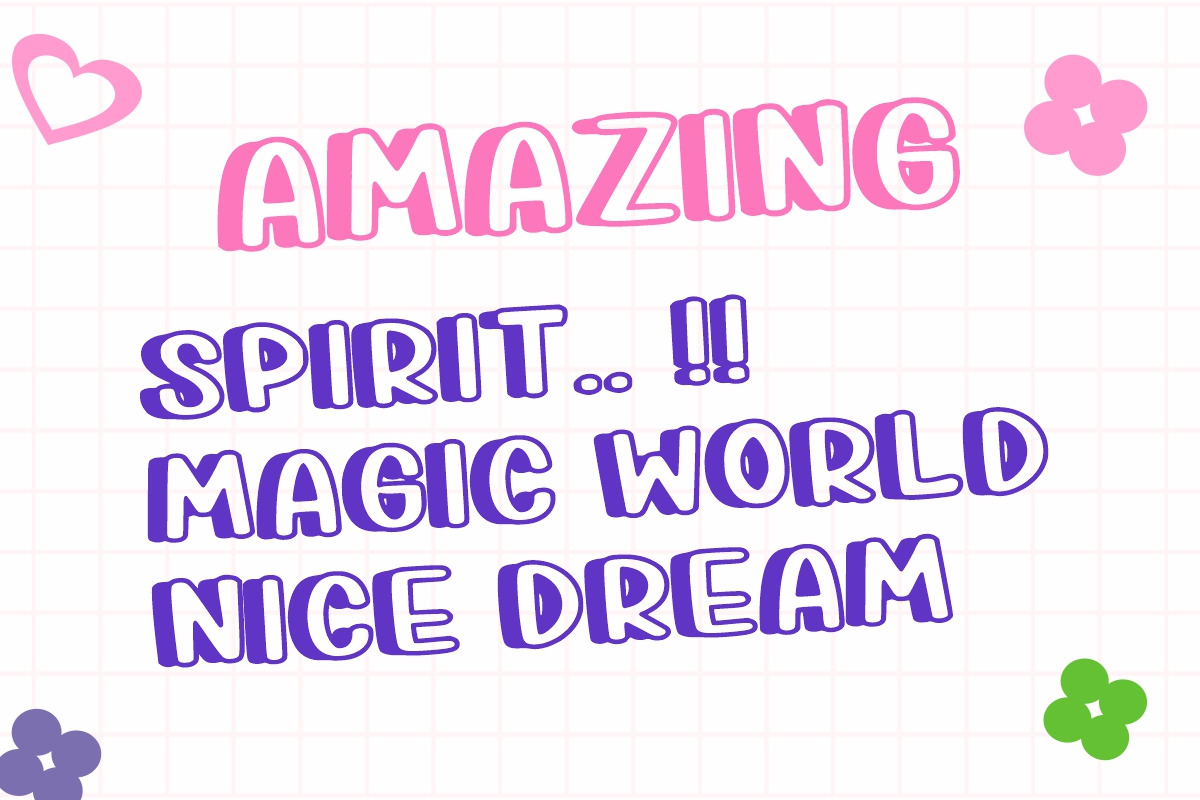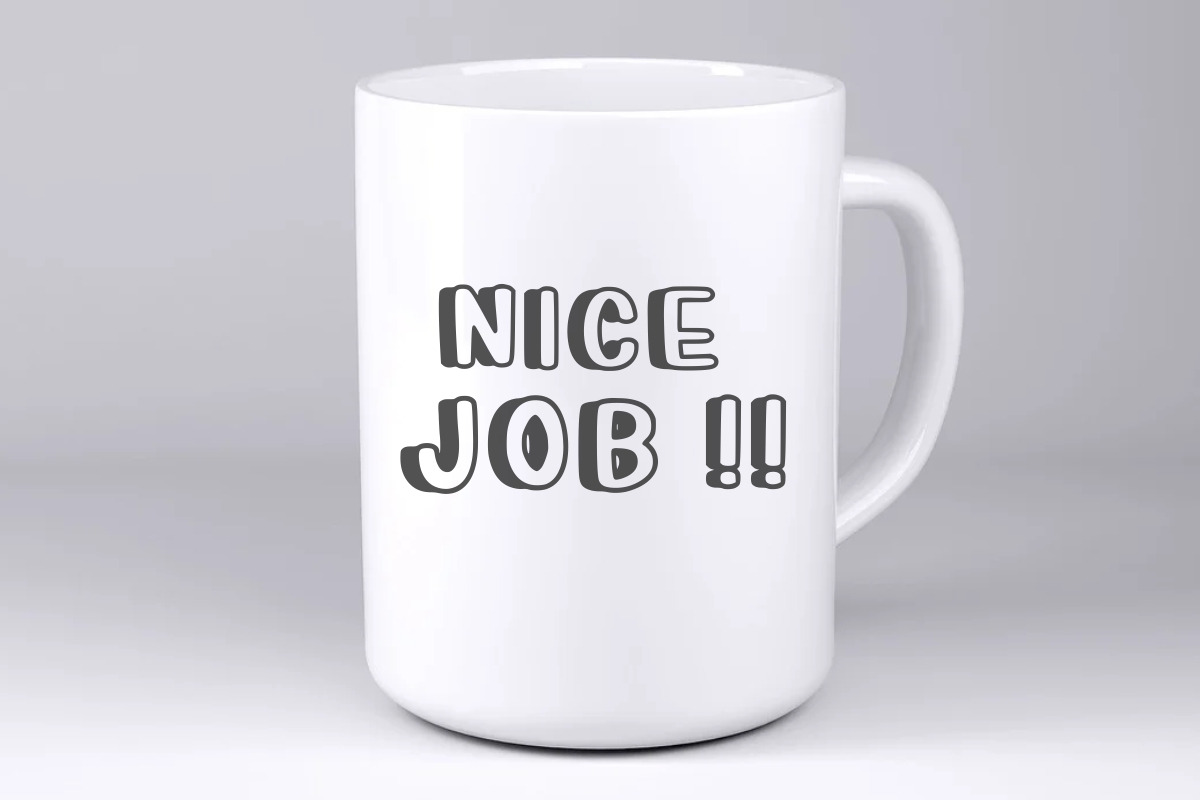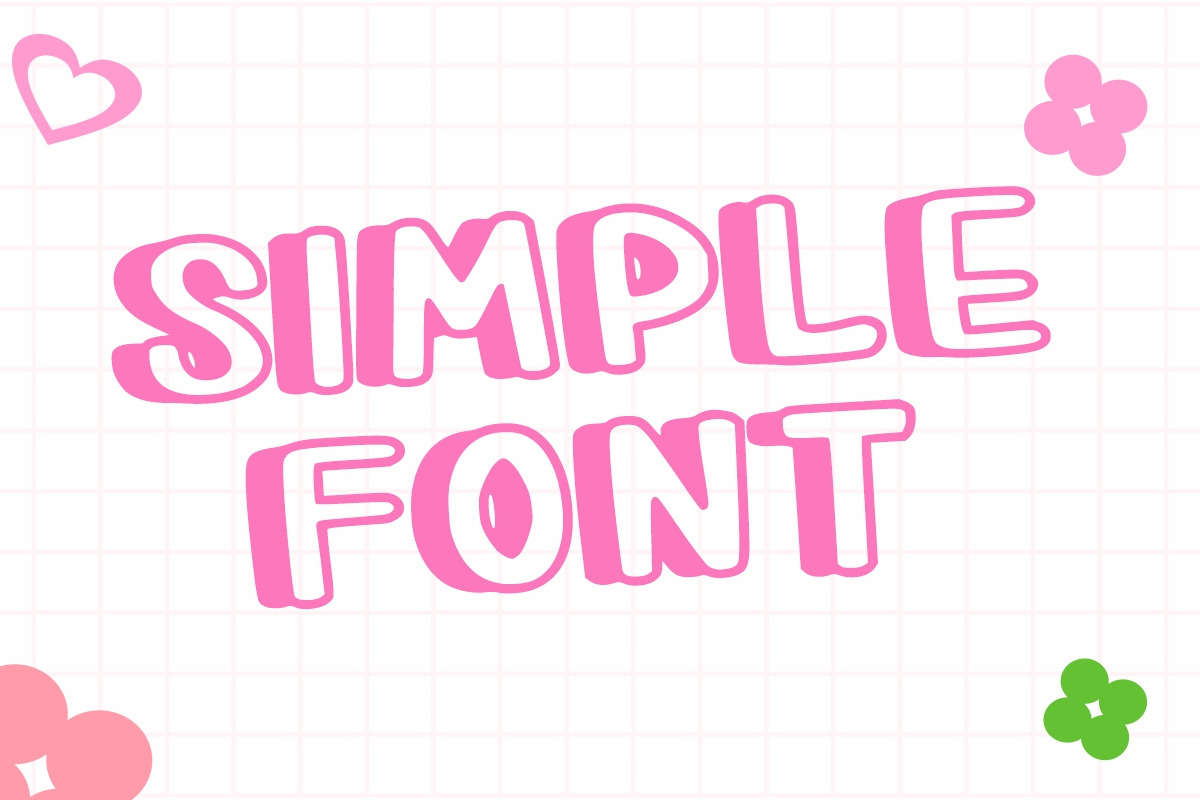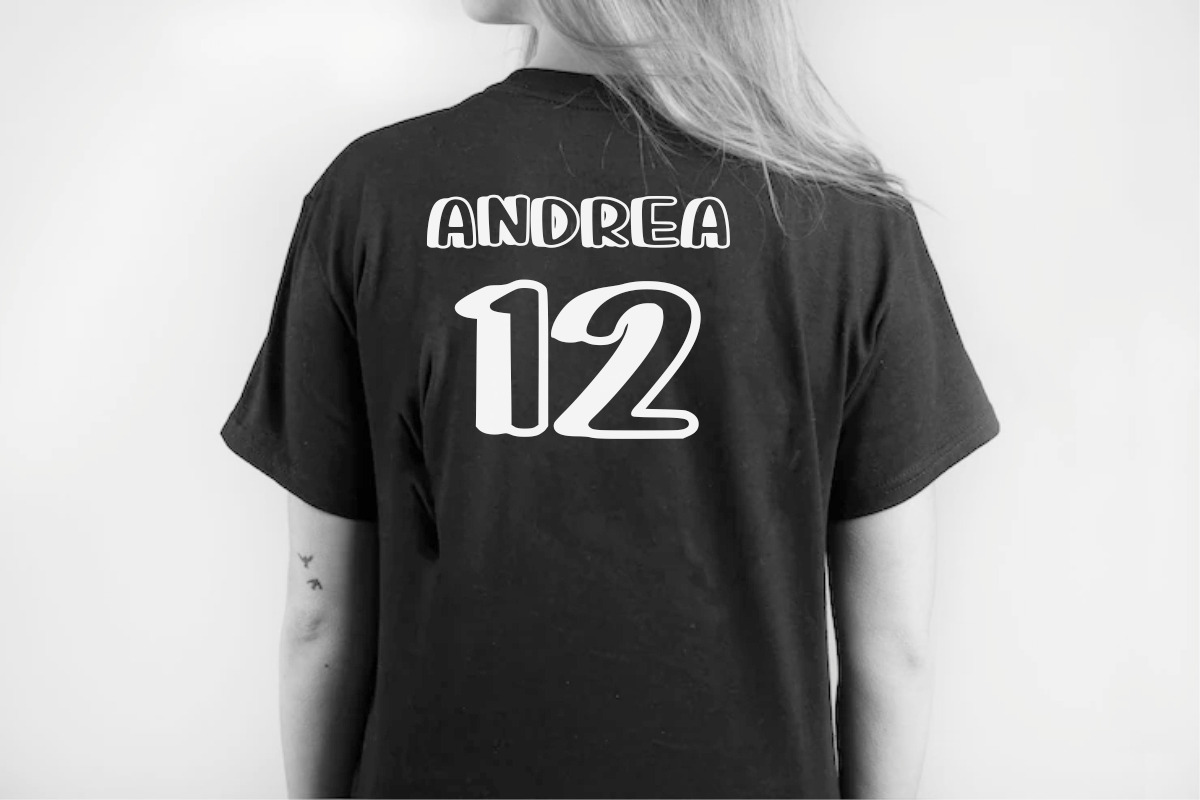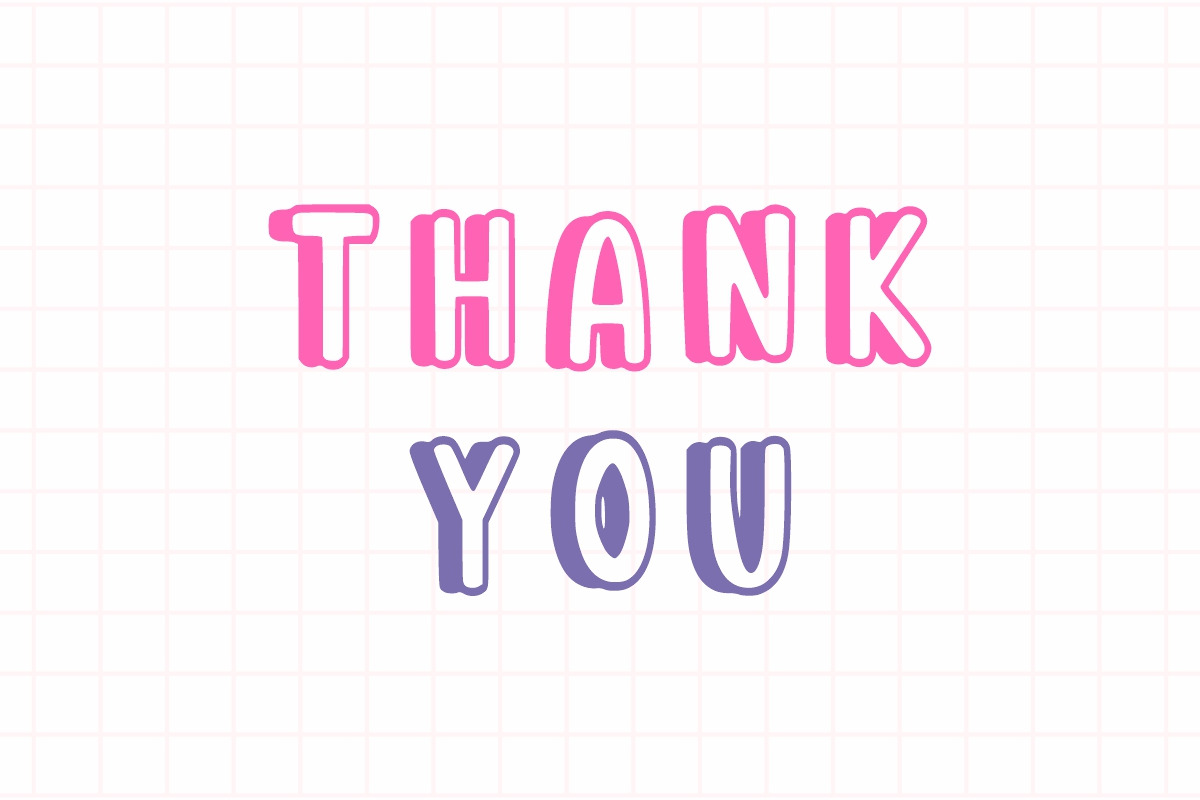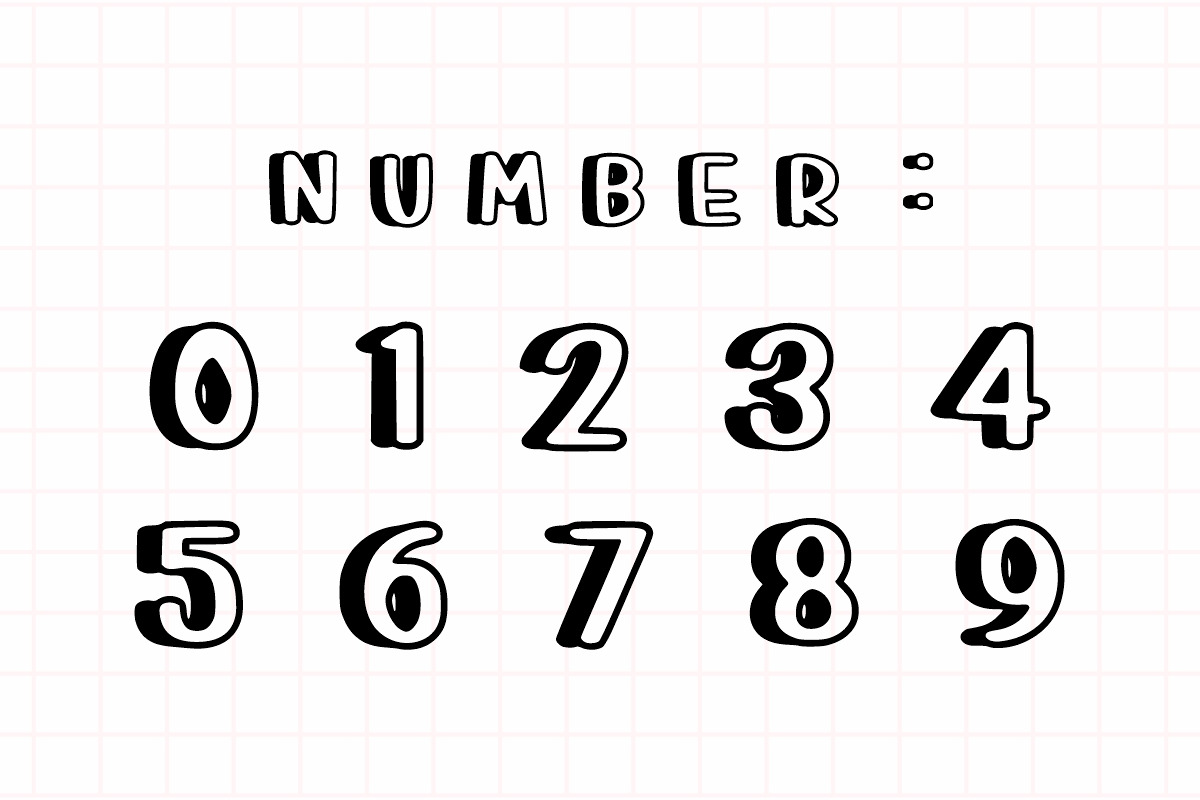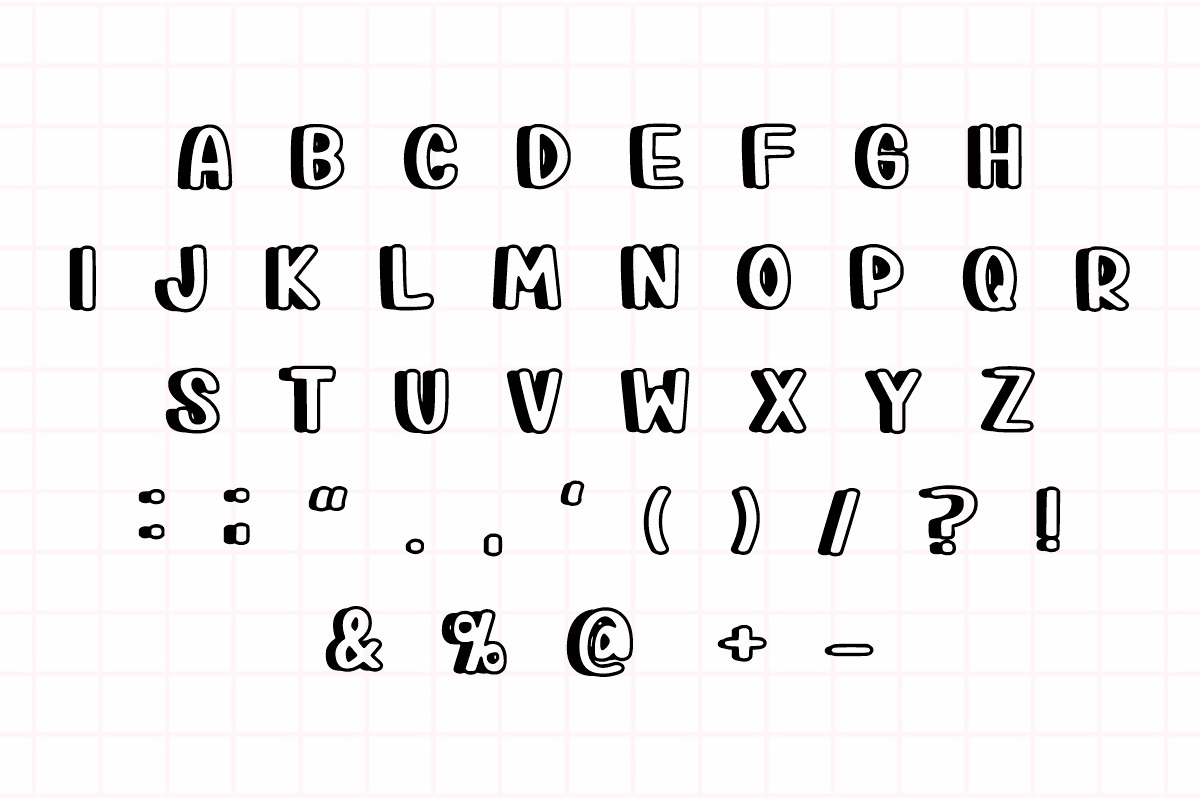
Love Barbie
Love Barbie is Line a cute, thin, simple, and friendly display font. Its informal style and casual vibe will make this font a go-to choice for each of your creations that require a relaxed touch. It is suitable for any product packaging, invitation, quote, t-shirt, label, poster, or logo that you wish to develop!